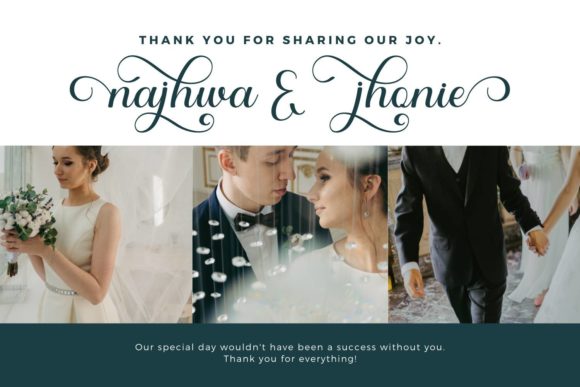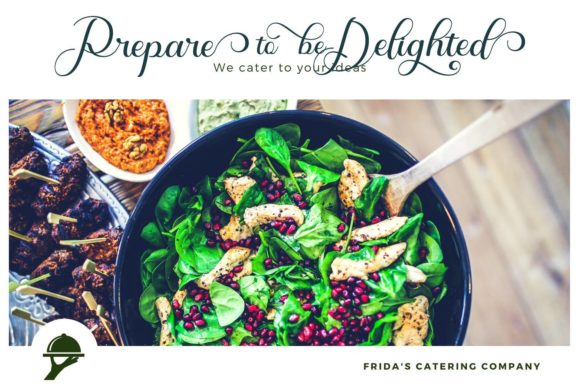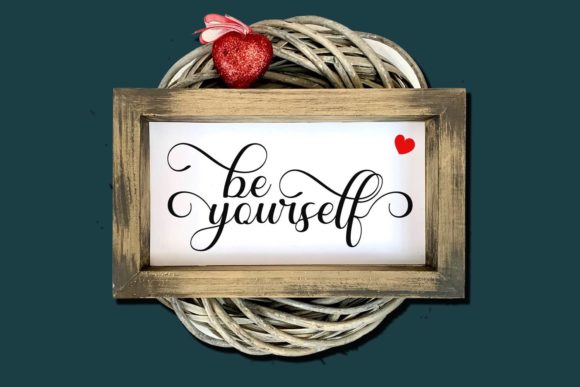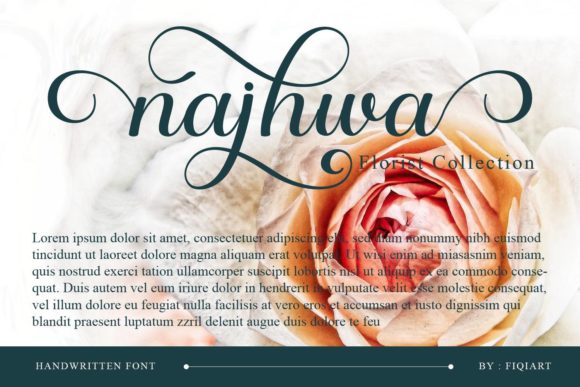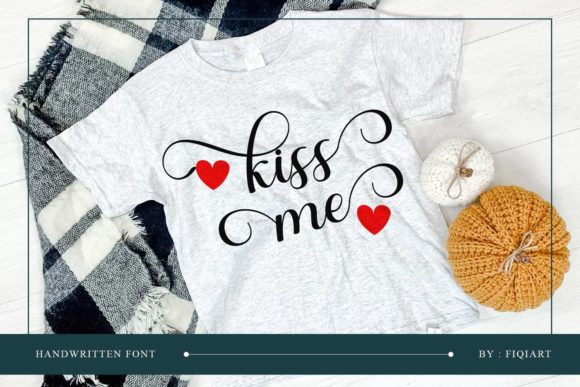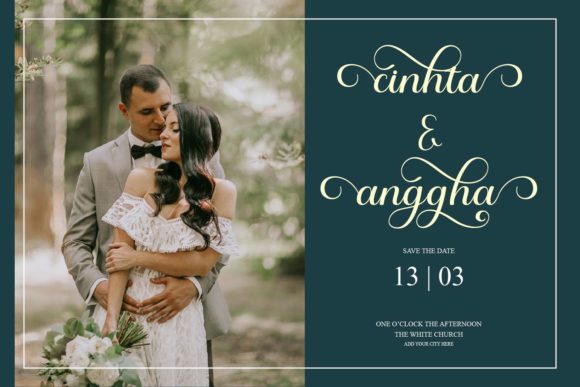
The Perfect Brushstroke: Unveiling the Angelin Font
There’s something magical about creating the perfect design, isn’t there? The moment when all the elements come together, and your vision starts to take shape. For designers, it’s a feeling that never gets old. And what’s even better is when you stumble upon the perfect font to bring your design to life. This is where the Angelin Font comes in – a unique and elegant handwritten font that’s sure to add a touch of personality to any design.
Whether you’re crafting a wedding invitation, a heartfelt thank you card, or a custom logo, the Angelin Font is the perfect companion to help you achieve your creative vision. With its beautiful brushstrokes and elegant flair, this font is a valuable addition to any designer’s toolkit. And the best part? It’s PUA encoded, making it easy to access all the glyphs and swashes you need to create stunning designs.
- Unique Characteristics: Angelina Font features a unique blend of elegance and sophistication, with subtle flourishes and refined lines that give it a distinctive feel.
Review of Angelin Font
Overall, I found the Angelin Font to be a beautiful and elegant choice for typography. It’s perfect for creating a whimsical and dreamy atmosphere in designs. ✨ The font’s subtle flourishes and intricate details make it ideal for use in wedding invitations, baby announcements, and other celebratory designs. ✨
One of the standout features of the Angelin Font is its versatility. It works well in both digital and print designs, and can be used in a variety of contexts, from titles and headings to body text. ✨ However, I did find that the font can be a bit challenging to read in smaller sizes, particularly in block text. ⚠️
Another limitation I noticed is that the font’s intricate details can sometimes make it difficult to achieve crisp, clear lines. This can be particularly problematic when using the font for large blocks of text. ⚠️
- Beautiful, elegant design perfect for whimsical and dreamy designs
- Subtle flourishes and intricate details make it ideal for celebratory designs
- Works well in both digital and print designs
- Challenging to read in smaller sizes, particularly in block text
- Can be difficult to achieve crisp, clear lines in large blocks of text
Overall, I would recommend the Angelin Font for designers looking to add a touch of elegance and whimsy to their designs. However, it’s essential to be aware of its limitations and use it judiciously in the right contexts.
The Angelina Font is ideal for creating elegant and sophisticated designs, such as:
- Luxury brand logos and packaging
- High-end business cards and letterheads
For optimal results, use the Angelina Font in conjunction with high-quality images and graphics to create a cohesive and visually appealing design.